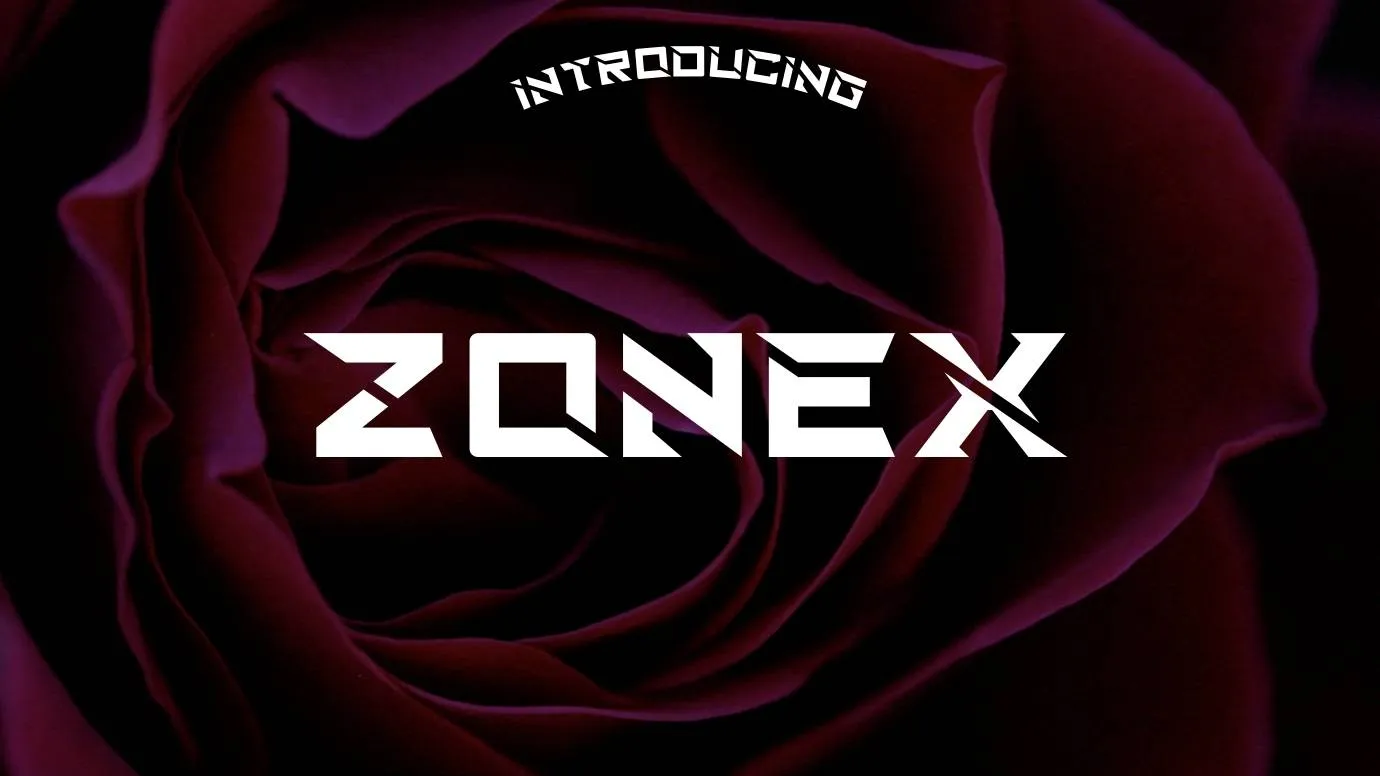
Zonex Font Family has a futuristic style and modern look. It comes with unique caps and bold corners. Line Creative which is a well-known font foundry works for the creation of this typeface.
The advanced and additional features of every font make it impressive and qualitative as compared to others. Similarly, the Zonex typeface has a bunch of remarkable features that make it worth using.
Zonex Font